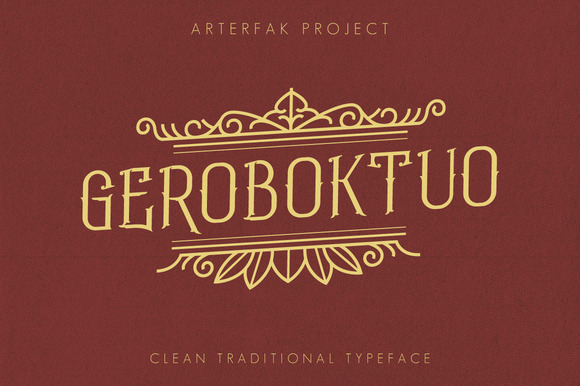
Feast your eyes on the Geroboktuo Font, a serif masterpiece that artfully blends vintage charm with modern elegance. This font family, lovingly crafted by the talented Arterfak Project, is a symphony of aesthetics and functionality, ready to elevate your creative projects to new heights.
Journey through the realm of design with Geroboktuo, a font that captures the essence of timeless beauty. Its clean and simple lines exude a sense of sophistication, while its ornamental touches add a touch of whimsy and intrigue. Whether you're designing logos, crafting brochures, or creating eye-catching social media graphics, Geroboktuo will effortlessly transform your words into works of art.
Step into the world of Geroboktuo and immerse yourself in a world of limitless creative possibilities. Its versatile nature effortlessly adapts to a wide spectrum of projects, from classic wedding invitations to modern website designs. With Geroboktuo at your fingertips, you'll discover a font that seamlessly blends tradition and innovation, breathing life into your designs like never before.
Indulge in the visual symphony of Geroboktuo, where each character dances across the page with grace and precision. Its serif strokes, reminiscent of the artistry of old, lend an air of elegance to your designs, while its contemporary twist ensures it remains fresh and relevant in the digital age. Experience the joy of creating designs that resonate with your audience, leaving a lasting impression that speaks volumes.
Welcome to the world of Geroboktuo, where fonts come alive to tell your stories. Its ornamental details, like delicate flourishes and subtle curves, add depth and character to every word, making your designs stand out from the ordinary. Embrace the allure of Geroboktuo and embark on a creative journey where your imagination knows no bounds.